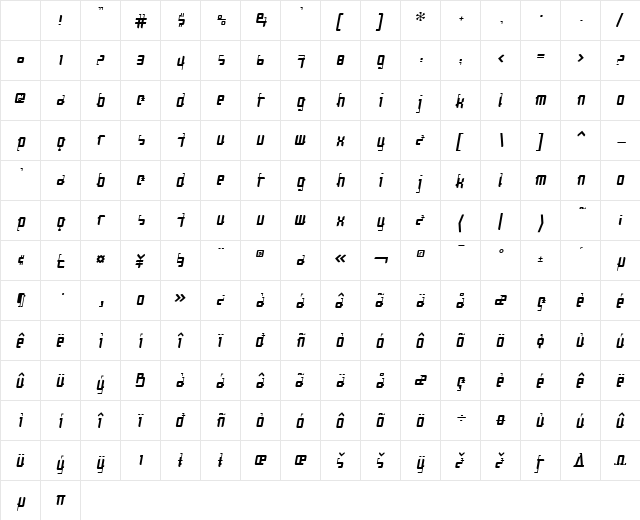
Complete CallistoGravity Medium Italic glyph index. Displaying only characters natively supported by CallistoGravity Medium Italic font.
CallistoGravity is a composed and adaptable typeface that performs quietly and consistently across a wide range of design contexts. The slanted form adds forward momentum and visual energy.